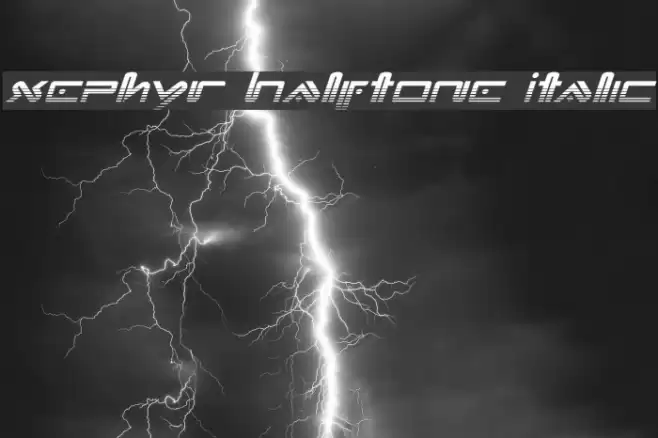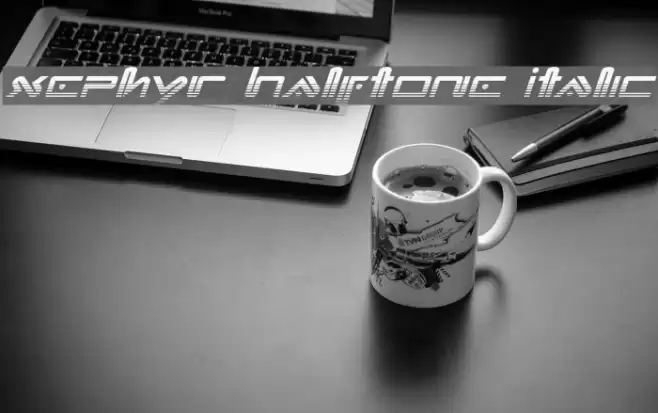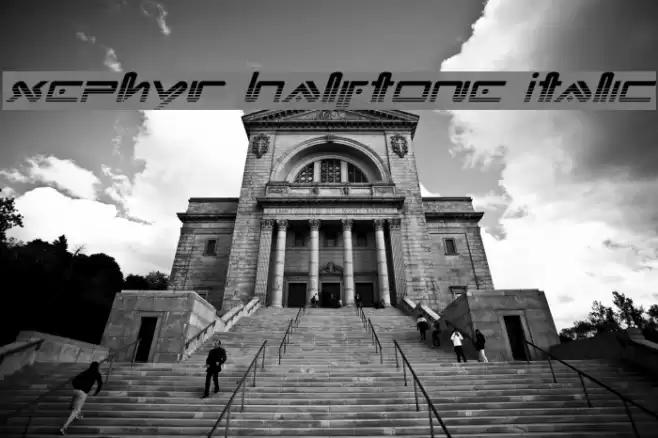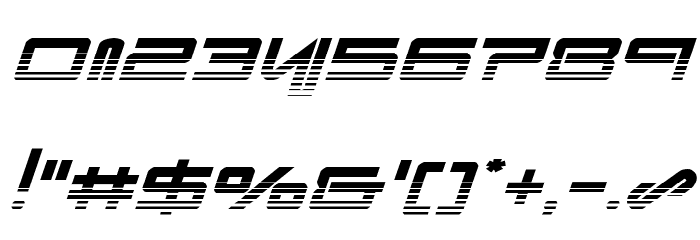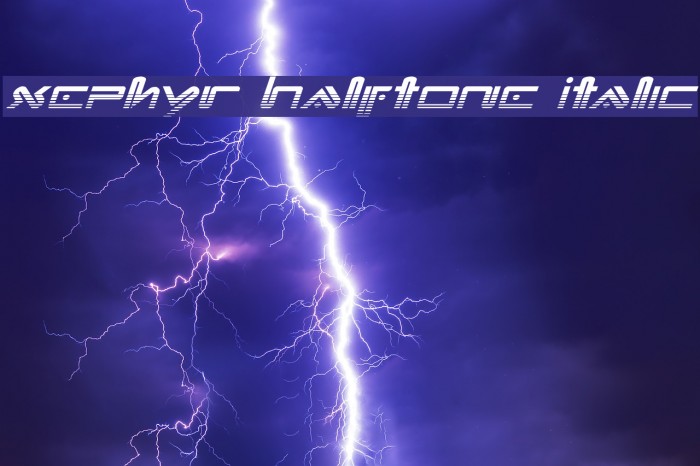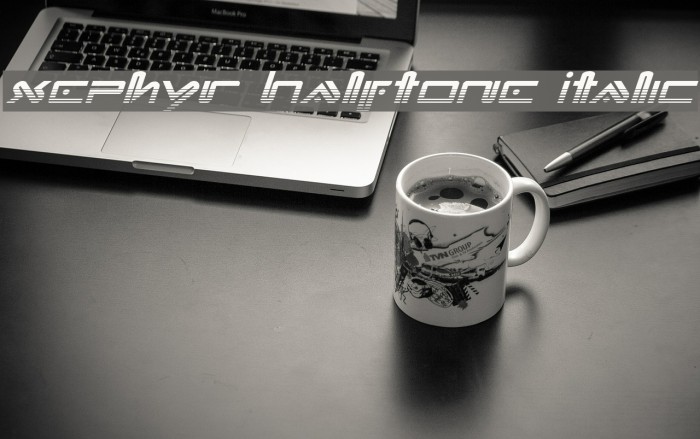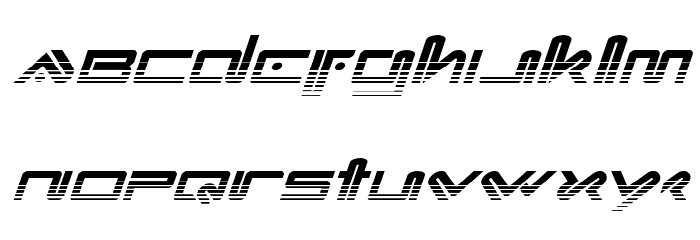
Xephyr Halftone Italic Font
Xephyr Halftone Italic Description
This font features a futuristic and dynamic design characterized by its halftone effect and italicized style. The letters are composed of horizontal lines that create a sense of movement and speed, making it ideal for projects that require a modern and edgy look. The uppercase and lowercase letters maintain a consistent style, with sharp angles and a sleek appearance. Numbers and special characters are designed to match the overall aesthetic, ensuring a cohesive look across all text elements. The font's unique style makes it stand out, perfect for eye-catching designs.
A futuristic, italic font with a halftone effect and dynamic lines from Uncategorized fonts.
- Proposed Projects: Ideal for sci-fi themed designs, tech branding, video game titles, and futuristic posters.